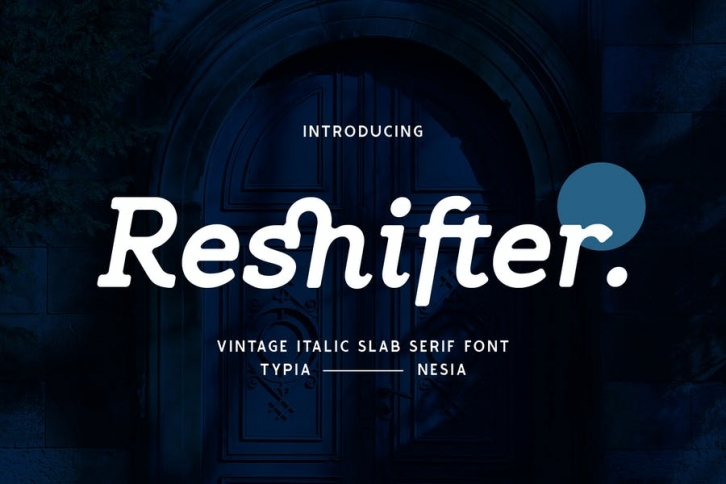
Reshifter - Retro Vintage Bold Italic Slab Serif FONT Download
Reshifter - Retro Vintage Bold Italic Slab Serif - Classic Adventure Font
Suitable for any design needs : logo, branding, modern advertising design, vintage garage design, adventure / mountain hiking brand, hardcore music, animation or movie, logos, retro summer poster quote, book / novel cover Title, editorial design, website / blog, card, and more.